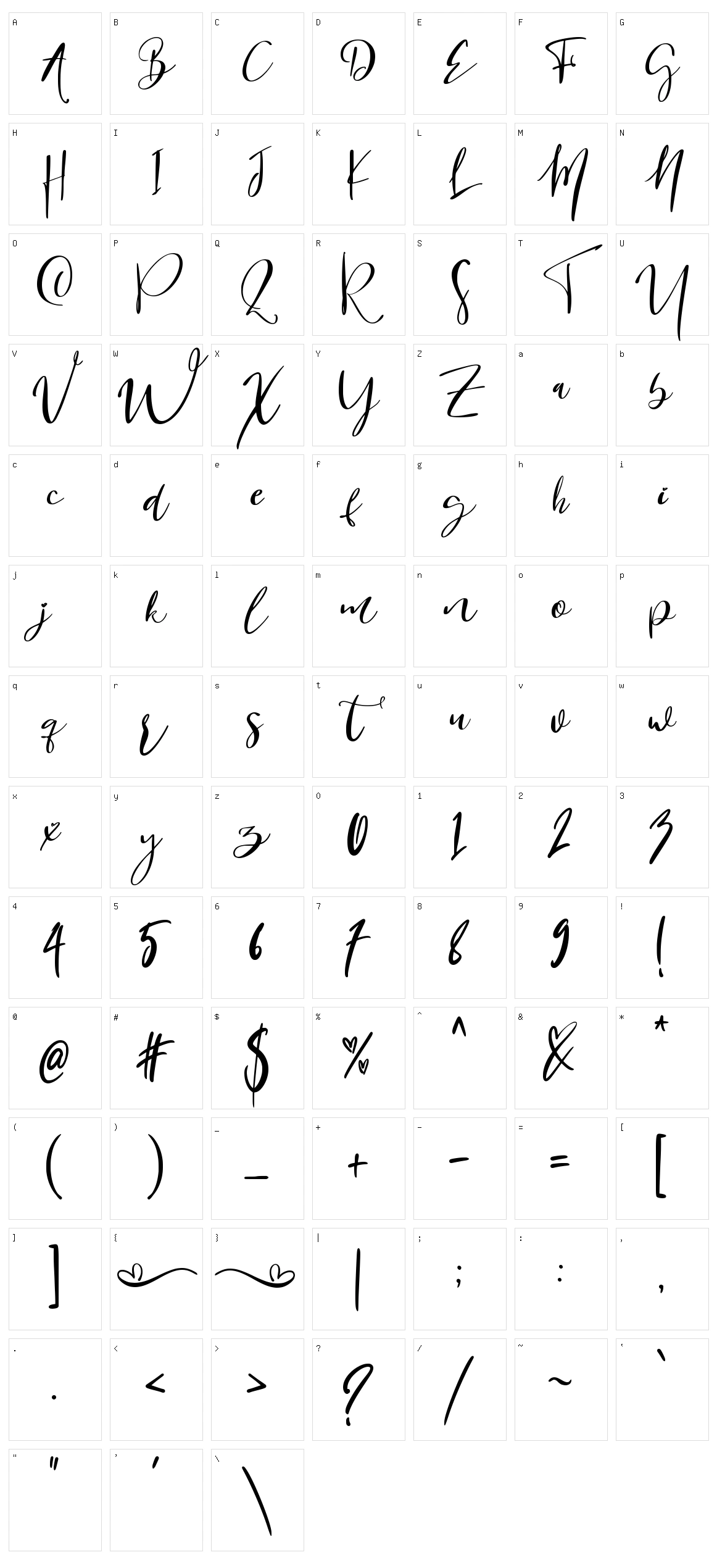
The free font Bridesmaids is carefully designed by Noftanti Studio, showcasing a thoughtful balance of creativity and usability and falls under the Script font style. When you download the ZIP file, it contains only 63.75 KB of font files, making it lightweight and quick to download. Please review the license details below to understand permitted usage and distribution rights. If license information is not available, we recommend using this font for personal projects only or contacting the author directly for commercial usage permissions.